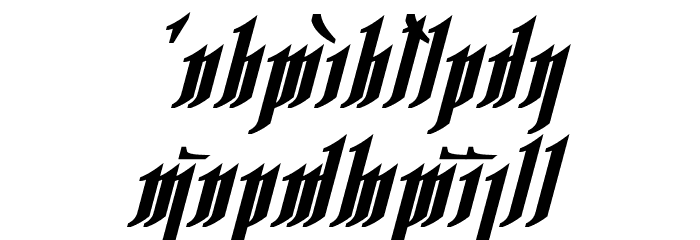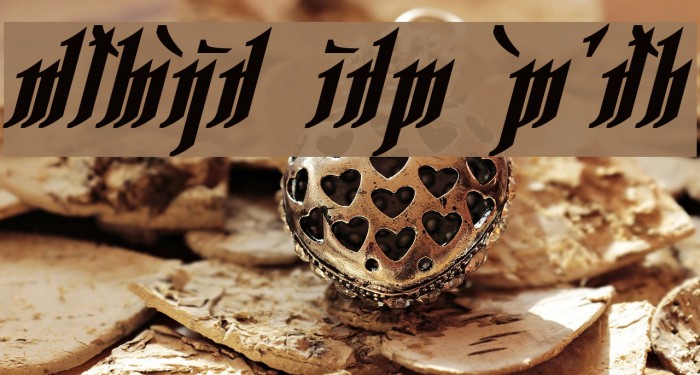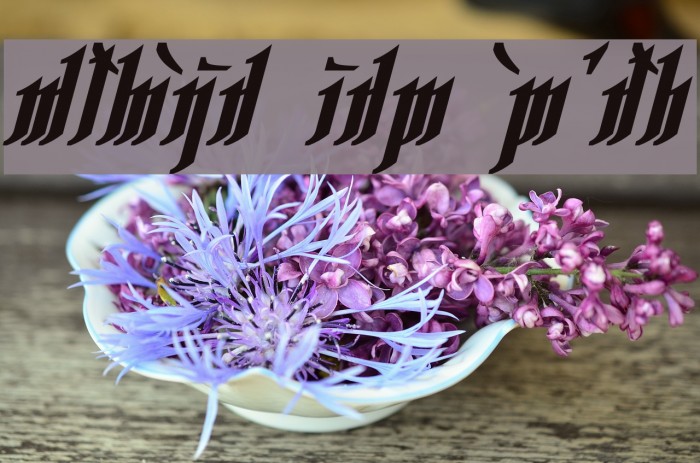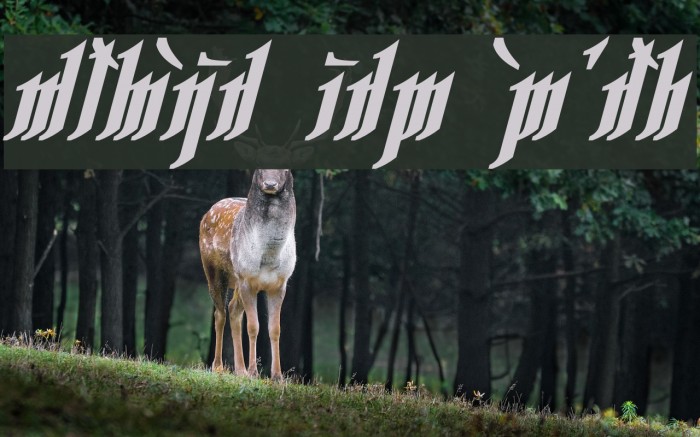
Rhesimol Bold Italic Font
This font features a bold and italicized style with a distinct calligraphic influence. The characters are sharply angled, giving a dynamic and energetic appearance. The strokes are thick and consistent, with a high contrast between the thick and thin parts of the letters. The overall design is reminiscent of traditional blackletter scripts, yet it maintains a modern twist with its sleek and streamlined forms. The uppercase and lowercase letters are well-balanced, and the numbers and special characters are designed to complement the alphabetic characters seamlessly. This font exudes a sense of elegance and sophistication, making it suitable for a variety of creative applications.
A bold, italicized font with a calligraphic and blackletter-inspired design.
- Proposed Projects: Ideal for use in branding, logo design, posters, and invitations where a dramatic and elegant touch is desired.
- Category: Blackletter
- Overall Style: Modern, Decorative